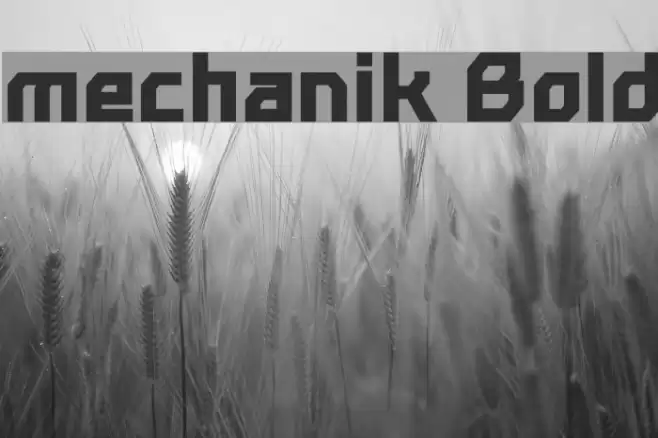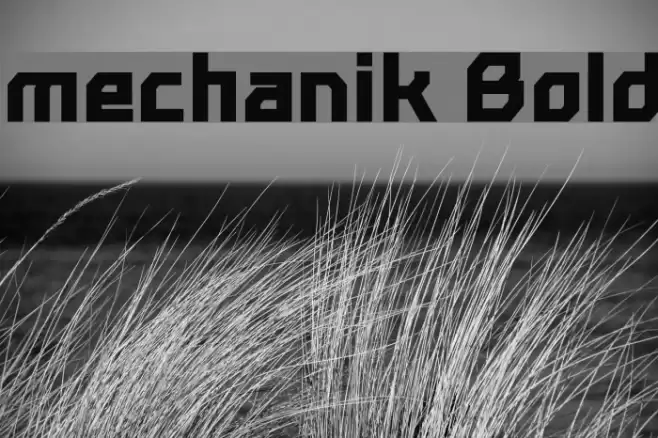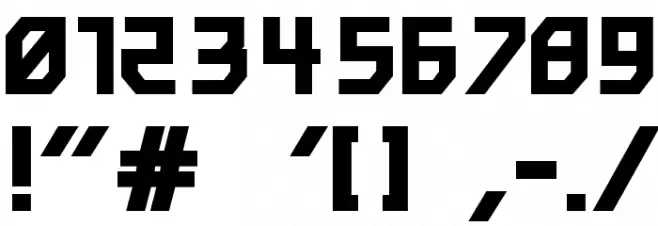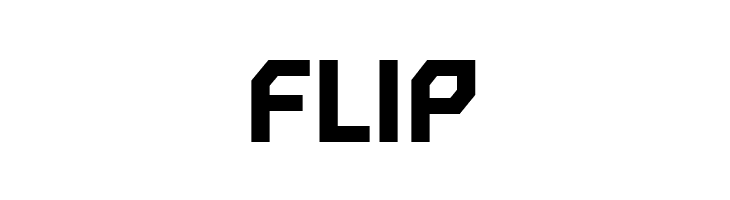
mechanik Bold Font
mechanik Bold Description
This font features a bold, geometric design with strong, angular lines and a mechanical aesthetic. The characters are constructed with a uniform stroke width, giving it a robust and industrial feel. The uppercase and lowercase letters maintain a consistent style, with sharp edges and a blocky appearance. The numerals and special characters follow the same design principles, ensuring a cohesive look across all glyphs. This font's distinctive style makes it stand out, offering a modern yet retro-futuristic vibe.
A bold, geometric font with a mechanical and industrial aesthetic from Futuristic fonts.
- Proposed Projects: Ideal for projects that require a strong, industrial look such as branding for tech companies, posters for sci-fi events, or video game titles.